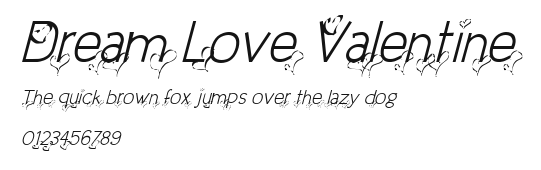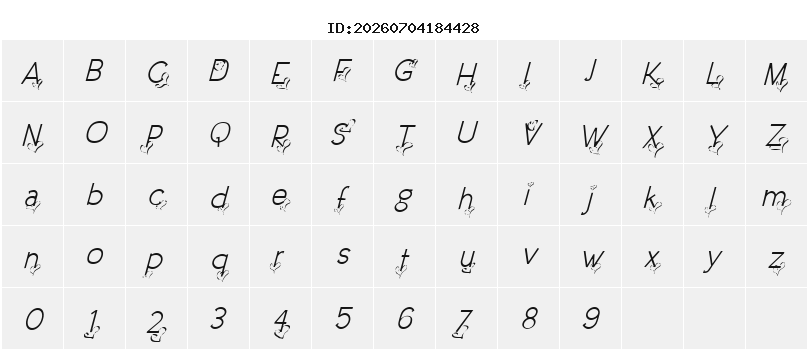
Dream Love Valentine Preview
• Font Name: Dream Love Valentine
• Font Style: Light Italic
• Font ID: TipografiaLeone: Dream Love Valentine Light Italic: 2014
• Full Font Name: Dream Love Valentine Light Italic
• PostScript Name: DreamLoveValentine-LightItalic
• Character Count: 223
• Designer: Tipografia Leone
• Manufacturer: Tipografia Leone
About Dream Love Valentine.ttf
Dream Love Valentine.ttf is a modern, elegant sans-serif font designed for ultimate readability and visual harmony. Perfect for branding, headlines, web design, and print materials.